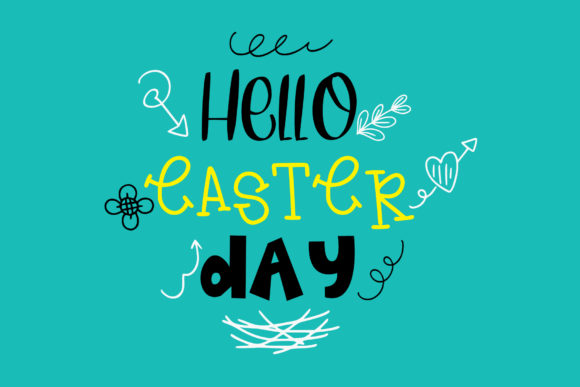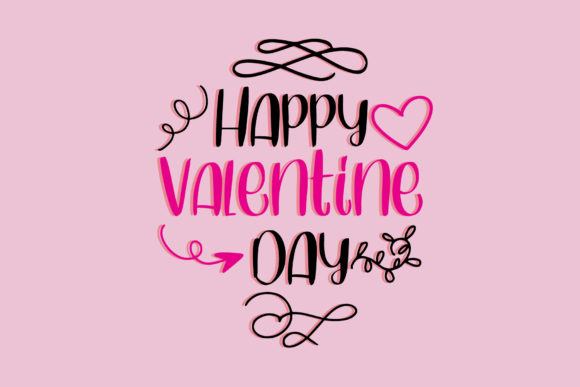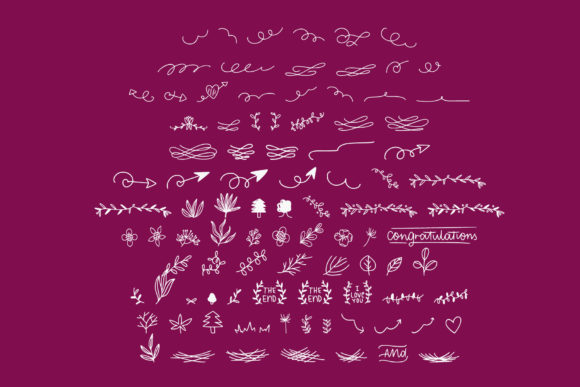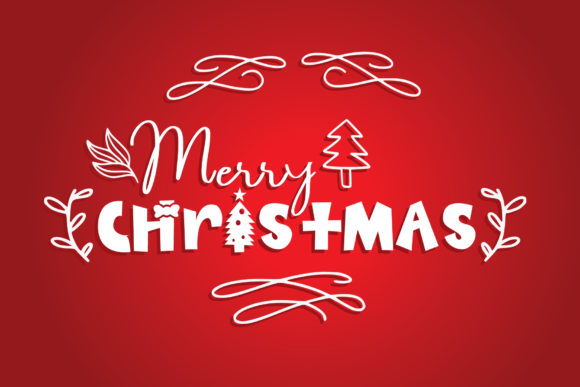
Dingbats Floral Font: Elevate Your Designs with Whimsical Elegance
Dingbats Floral is an incredibly useful and interesting dingbats font that can add a touch of whimsy and elegance to your projects. Add it confidently to your designs, and you won’t be disappointed. This versatile font is perfect for designers, crafters, and anyone looking to add a unique flair to their work.
What are Dingbats?
Dingbats are a type of typographic symbol or ornament that can be used to add visual interest to text and designs. They are often used in graphic design, scrapbooking, and other creative projects to add a decorative touch. Dingbats can range from simple shapes and icons to intricate illustrations and patterns.
The Beauty of Dingbats Floral Font
Dingbats Floral Font is a stunning collection of floral-inspired dingbats that can add a touch of elegance and sophistication to your designs. The font features a wide range of beautiful floral motifs, including flowers, leaves, and vines, all intricately designed to create a unique and eye-catching look.
Key Features of Dingbats Floral Font
- Wide range of floral motifs: The font features a vast collection of floral dingbats, including roses, daisies, sunflowers, and many more.
- Intricate designs: Each dingbat is intricately designed to create a unique and eye-catching look.
- Versatile: The font can be used in a variety of projects, from graphic design and scrapbooking to crafting and paper crafting.
- Easily scalable: The font can be scaled up or down without losing any quality, making it perfect for use in a variety of projects.
Uses for Dingbats Floral Font
Dingbats Floral Font is incredibly versatile and can be used in a wide range of projects, including:
- Graphic design: Use the font to add a touch of elegance and sophistication to your graphic designs, such as brochures, flyers, and posters.
- Scrapbooking: Add a personal touch to your scrapbook pages with the beautiful floral dingbats.
- Crafting: Use the font to create beautiful and unique crafts, such as handmade cards, gift tags, and decorations.
- Paper crafting: The font is perfect for paper crafting projects, such as card making, paper flowers, and other paper crafts.
Tips for Using Dingbats Floral Font
Here are a few tips for using Dingbats Floral Font in your projects:
- Experiment with different sizes and colors: Don’t be afraid to experiment with different sizes and colors to find the perfect look for your project.
- Combine with other fonts: Combine Dingbats Floral Font with other fonts to create a unique and eye-catching look.
- Use as a background or accent: Use the font as a background or accent to add visual interest to your project.
Dingbats Floral Font is an incredibly useful and interesting dingbats font that can add a touch of whimsy and elegance to your projects. With its wide range of beautiful floral motifs, intricate designs, and versatility, it’s perfect for designers, crafters, and anyone looking to add a unique flair to their work. So why not give it a try and see the amazing things you can create?